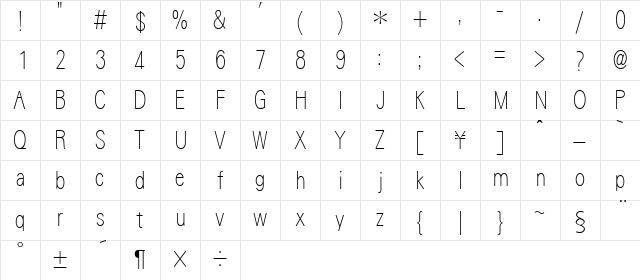
DFGKinBun-W3 Regular
| Foundry | DynaLab Inc |
Design Context for DFGKinBun-W3 Typeface
DFGKinBun-W3 takes a measured approach to typography — its balanced proportions and neutral character make it a reliable workhorse for both digital and print work.